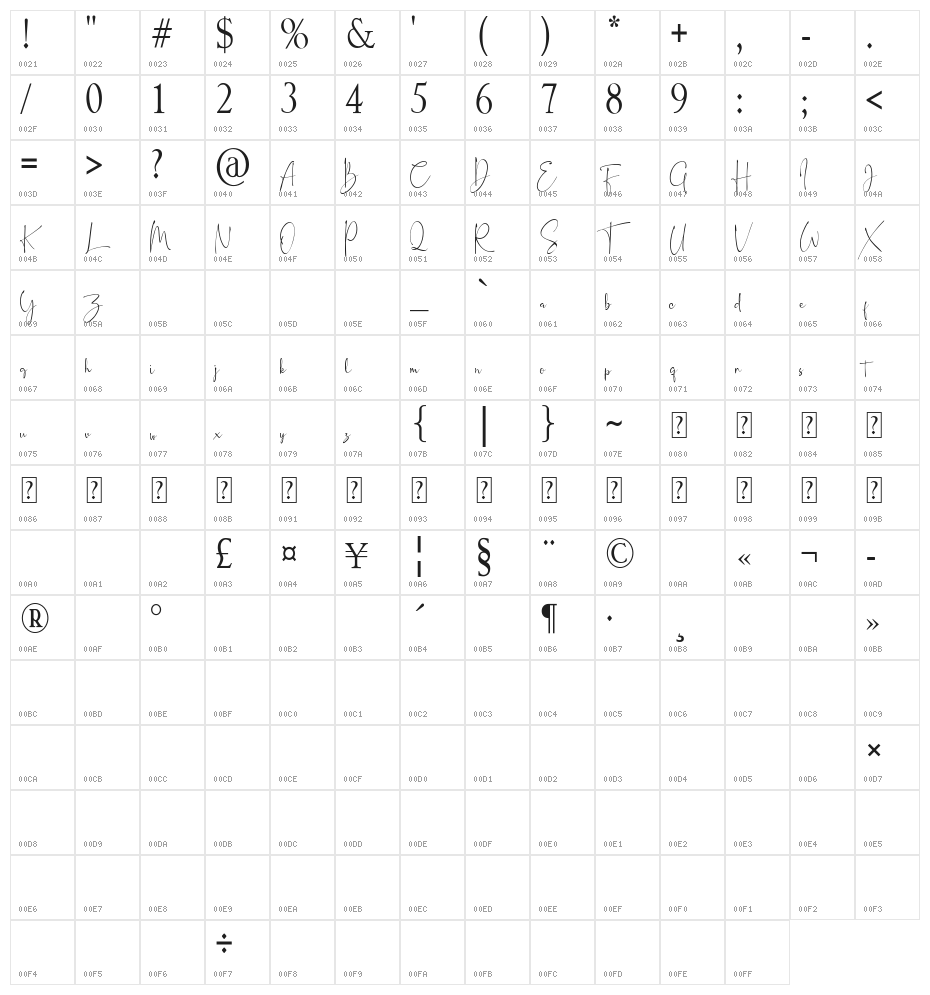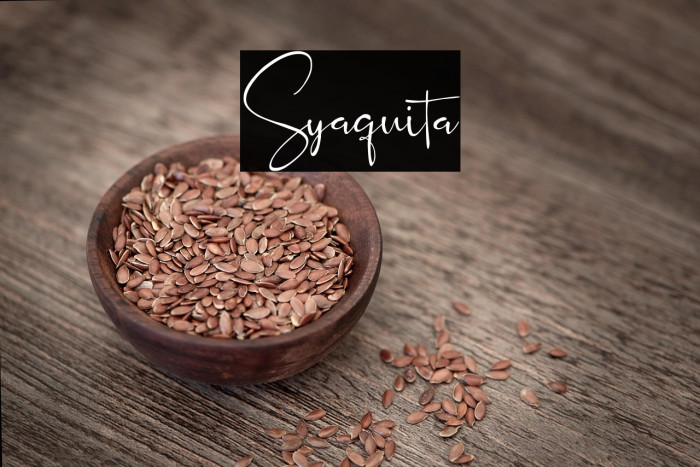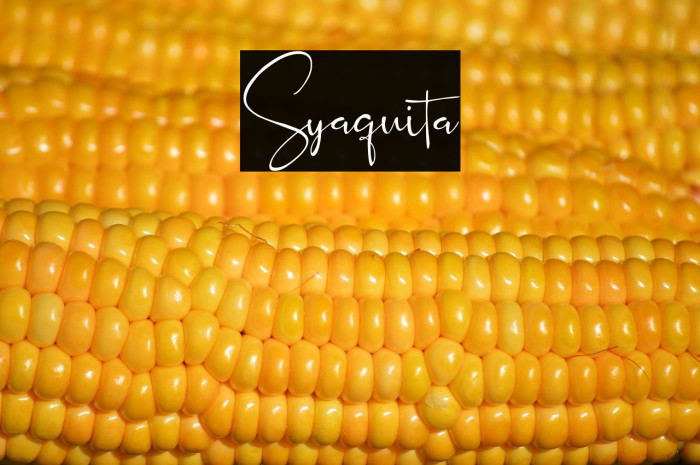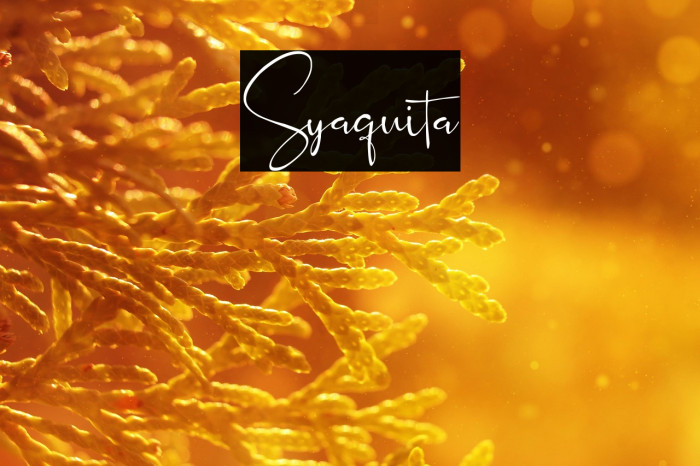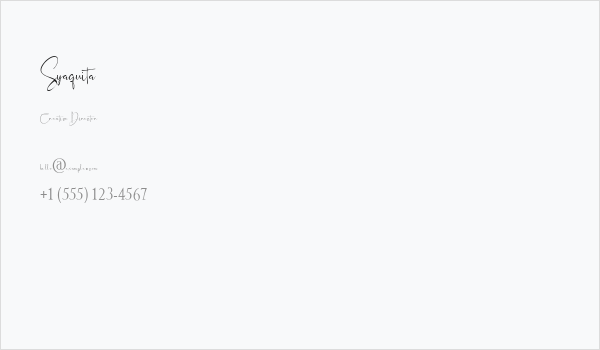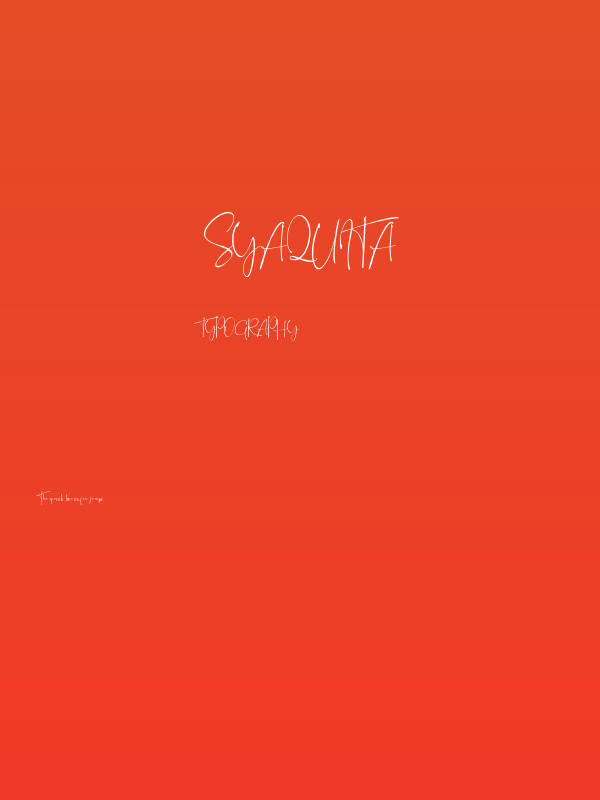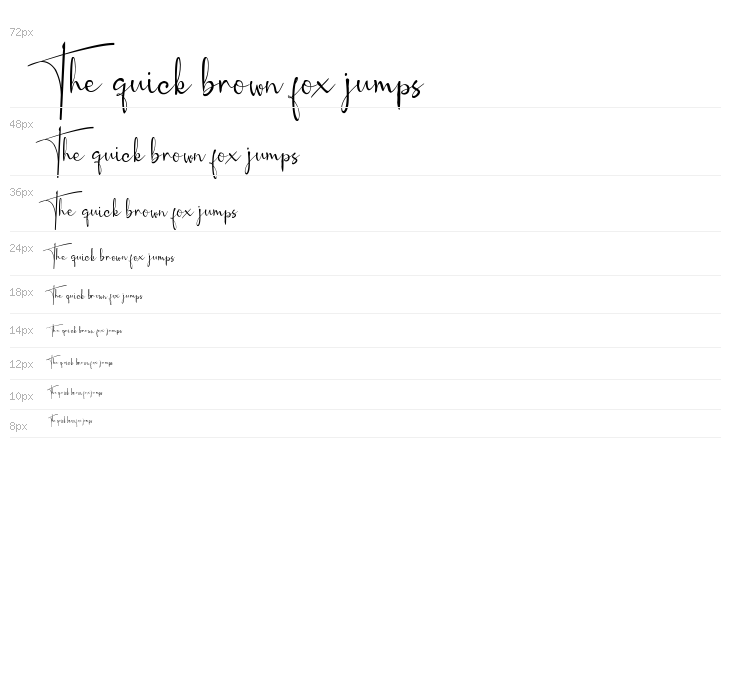
Syaquita Font
Syaquita Description
This font features an elegant and artistic script style with a handwritten appearance. The uppercase letters are tall and slender, with a playful, whimsical flair, while the lowercase letters maintain a smooth, flowing form. The numerals are bold and clear, contrasting with the delicate script of the letters. Special characters are thoughtfully designed to complement the overall aesthetic. This font exudes a sense of creativity and sophistication, making it suitable for various artistic and decorative applications.
| Proposed Projects | Ideal for wedding invitations, greeting cards, artistic branding, and decorative posters. |